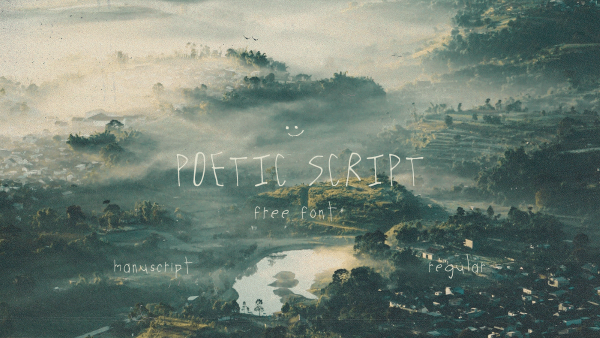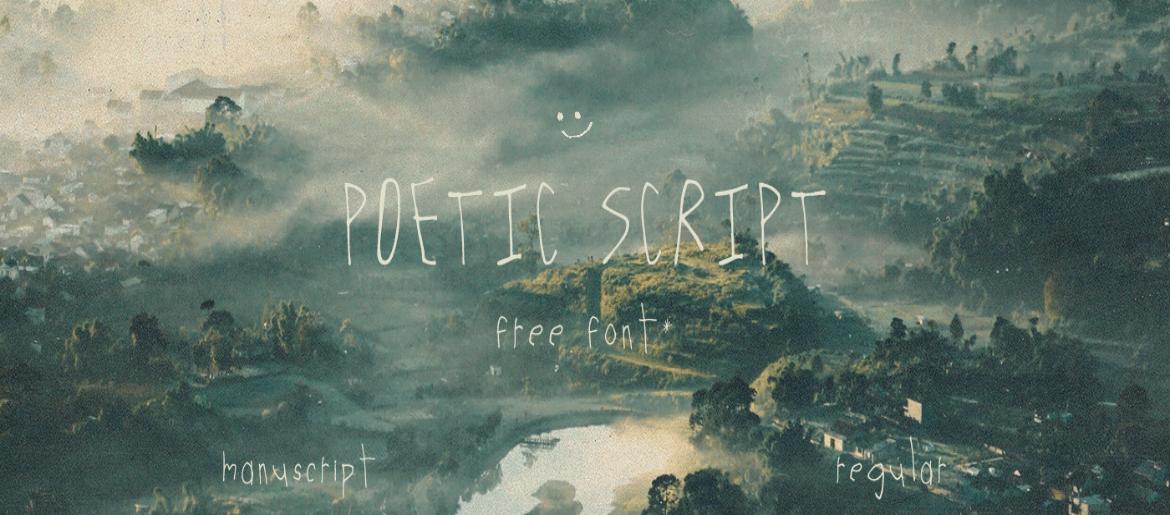
Poetic Script Font
Poetic Script is a handwritten manuscript typeface born in a university typography course, developed through deliberate exploration of gestural tools — ink brushes, ballpoint pens, and felt-tip markers — to preserve a genuinely humanist quality. Stroke weight variation and natural letterform rhythm give it a deeply personal character that works beautifully across stationery, editorial spreads, and expressive branding.